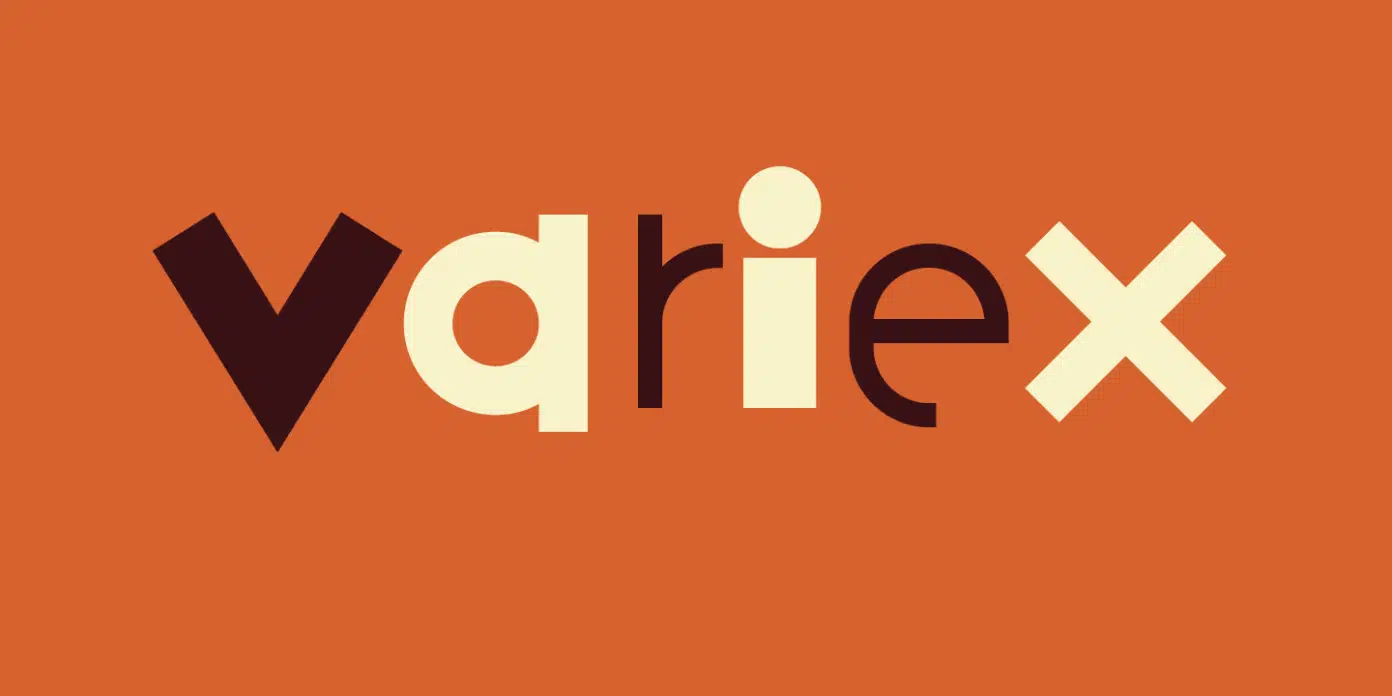
Variex Font is perfect for tech company branding, futuristic design projects, gaming interfaces, sci-fi movie titles, innovation-focused marketing, digital product packaging, modern app designs, contemporary poster art, cutting-edge advertising campaigns, and forward-thinking content that requires dynamic typographic versatility and technological sophistication.
This font is exciting because it delivers exceptional geometric variation and contemporary styling that feels both highly technical and aesthetically refined. The innovative character design showcases impressive flexibility with multiple stylistic variations that adapt seamlessly across different contexts, making it ideal for projects that need to communicate innovation, adaptability, and the dynamic nature of modern technology and digital transformation.
The Variex Font family typically includes multiple weights and widths, uppercase and lowercase characters, numerals, comprehensive punctuation, special symbols, technical glyphs, and extensive stylistic alternates that provide remarkable typographic flexibility for diverse technological applications.
Whether you're designing for tech startups, creating futuristic digital content, or developing brand identities for innovation-driven companies that push technological boundaries, Variex Font Free Download provides the perfect typographic expression of versatility and progress. Its dynamic character and technical sophistication make every project feel more cutting-edge and professionally executed, ensuring your designs effectively convey innovation, flexibility, and the forward-thinking excellence that defines industry leaders in technology and digital spaces.